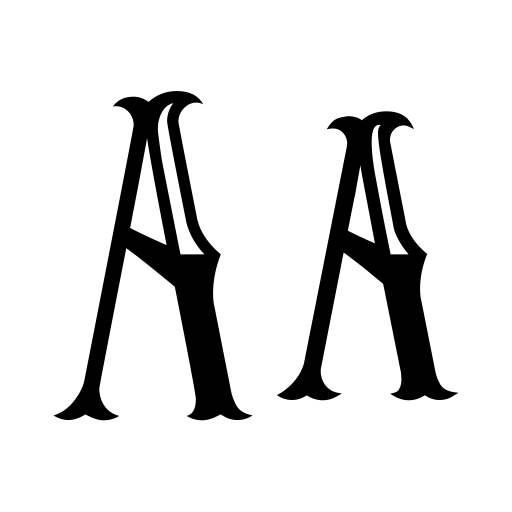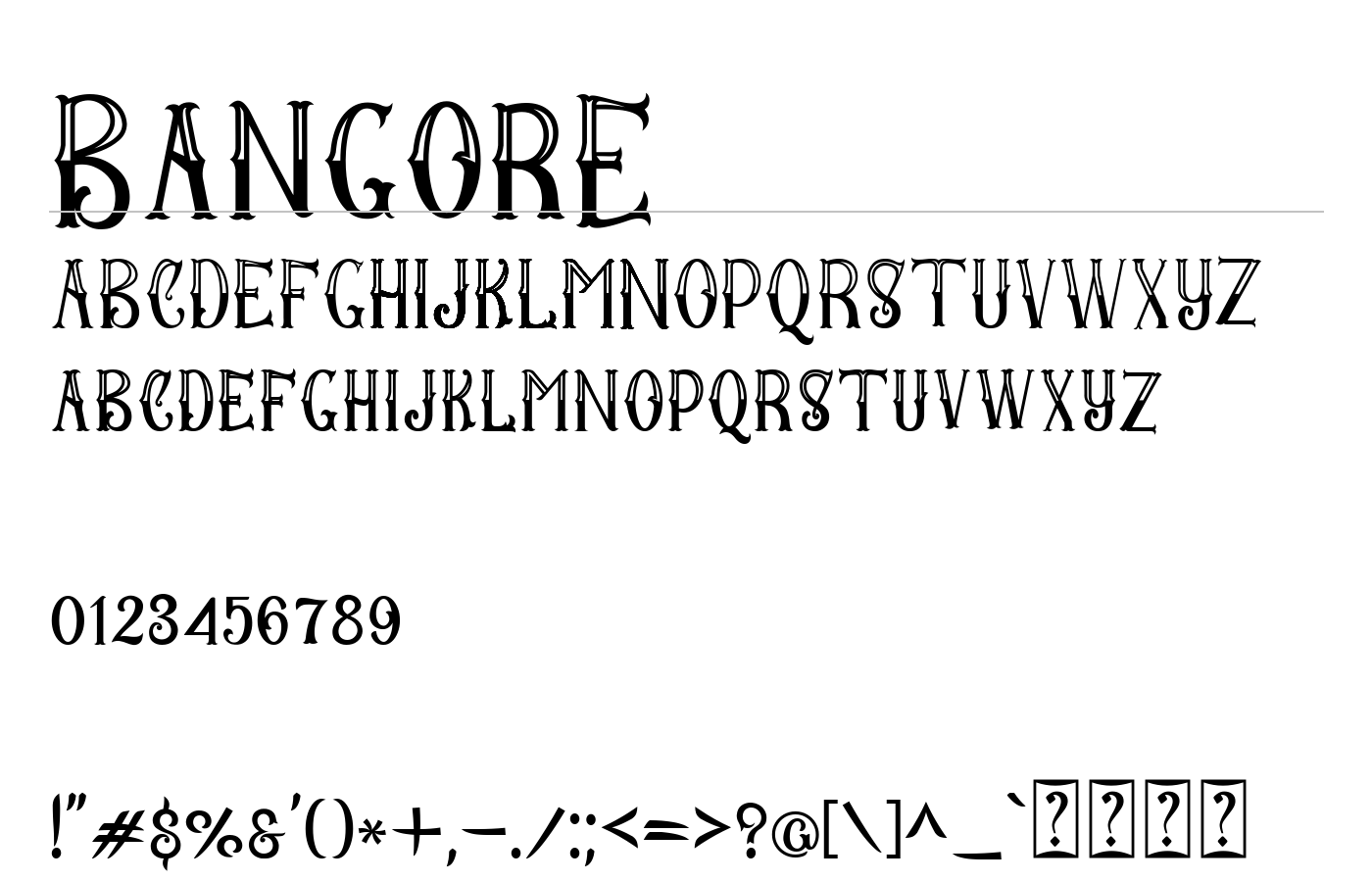
BangorE is a decorative serif font with a distinct vintage and theatrical feel, characterized by its narrow, condensed letterforms and intricate, sharp serifs that create a dramatic contrast between thick and thin strokes. Its capital letters feature unique ornamental details, giving the font a bold and expressive personality ideal for eye-catching headlines, event posters, or branding that seeks a classic yet quirky style. Perfect for designs that want to evoke a sense of old-world charm and artistic flair, BangorE stands out with its elaborate and refined character shapes.
BangorE Font